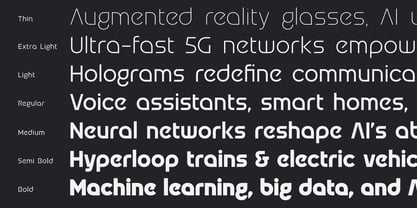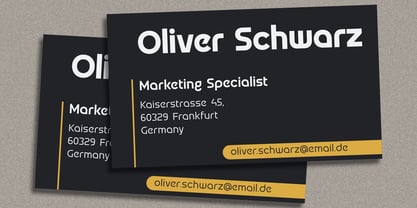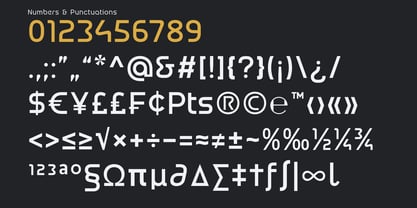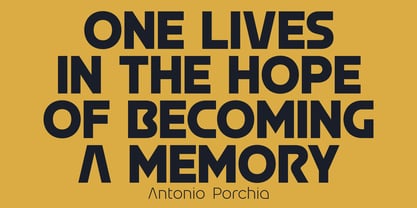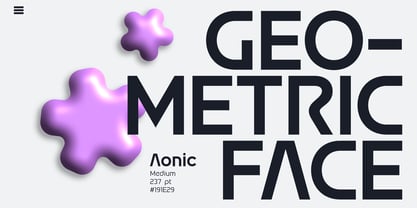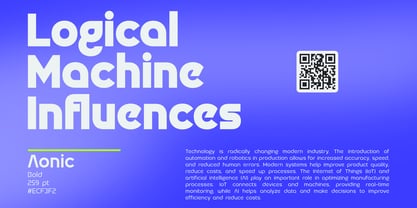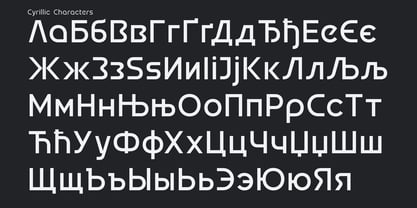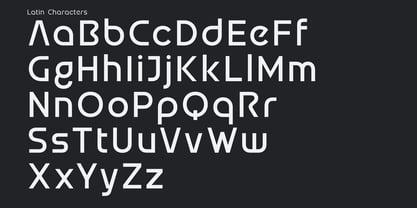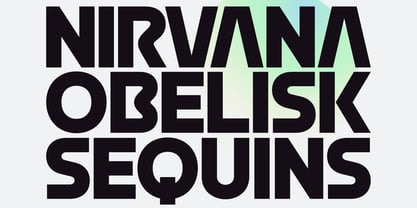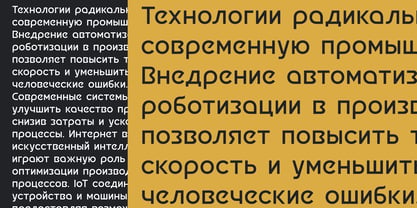
Aonic VF
Aonic VF – The Variable Evolution of Modern Sophistication
Aonic VF is the variable font version of the Aonic family, a modern sans serif typeface that blends minimalism with geometric precision. Designed for maximum flexibility, Aonic VF allows seamless adjustment of weight within a single file—giving designers the freedom to fine-tune typography with precision, from the thinnest lines to bold, striking statements.
Its refined and versatile nature ensures excellent legibility across print and digital media, making it ideal for editorial layouts, branding, packaging, websites, posters, and beyond. By combining elegance with functionality, Aonic VF adapts effortlessly to diverse creative contexts while maintaining a clean, sophisticated look.
With extensive language support including Cyrillic, Aonic VF is built for global communication. More than just a typeface, it’s a dynamic tool that empowers creativity and efficiency—delivering the full potential of modern typography in one powerful, variable format.